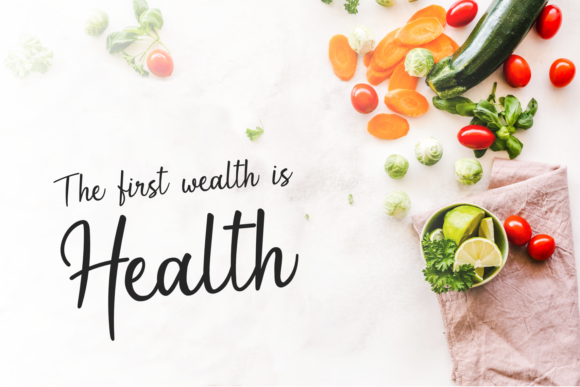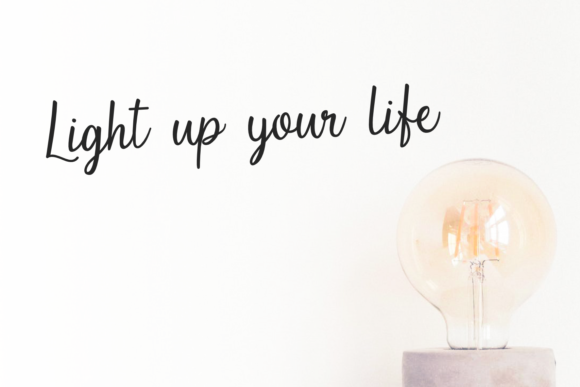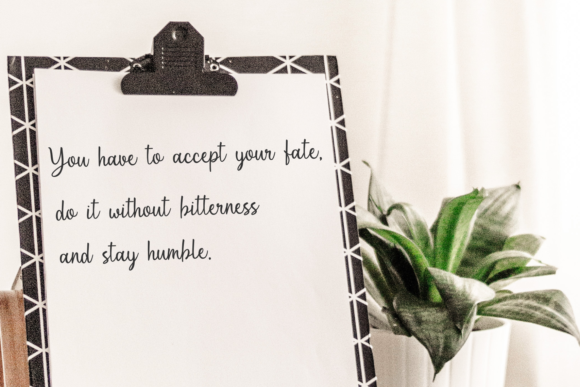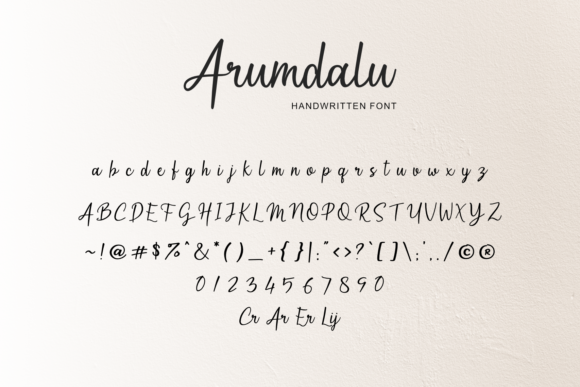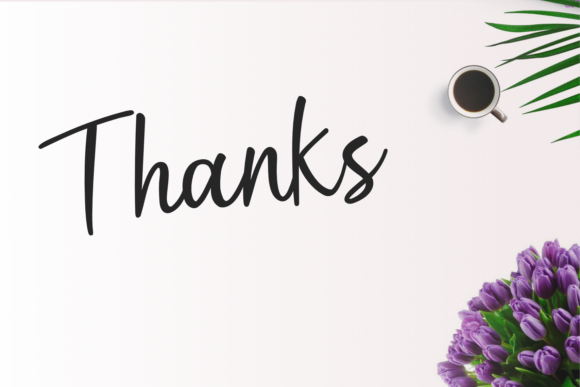
Discovering the Perfect Script: Arumdalu Font
There’s something special about scribbling down a new idea on a piece of paper – the feel of the pen gliding across the page, the sound of the words flowing onto the paper, and the excitement of bringing a concept to life. It’s moments like these that remind us of the beauty of handwritten fonts, and the importance of having the right tools to express ourselves.
Enter Arumdalu Font, a simple yet stylish handwritten font that’s designed to be easy to remember and versatile enough for any occasion. Whether you’re a designer, artist, or writer, Arumdalu Font is the perfect addition to your creative arsenal. Its clean lines and elegant curves make it a valuable asset for designers looking to add a touch of personality to their work.
Key Features of Arumdalu Font
• Character Count: The font contains a total of 1283 characters, including uppercase and lowercase letters, numbers, punctuation marks, and special symbols.
• Unique Characteristics: Arumdalu Font features a unique, hand-drawn design with a mix of modern and traditional elements, making it perfect for creating visually appealing and creative content.
• Language Support: Arumdalu Font supports multiple languages, including English, Korean, and other languages that use the Latin and Hangul scripts.
• Font Style: The font is available in regular and bold weights, allowing users to choose the style that best suits their design needs.
Arumdalu Font Review
As a designer, I’ve had the chance to work with the Arumdalu Font and I must say, it’s a unique and eye-catching choice. Here are some of the things that work well: ✨
• Unique and modern design: The Arumdalu Font has a distinct look that’s sure to grab attention. It’s perfect for projects that need a fresh and modern feel.
• Highly customizable: The font comes with a wide range of styles and weights, making it easy to customize to fit your design needs.
• Supports multiple languages: The Arumdalu Font supports a wide range of languages, making it a great choice for international projects.
• Limited font pairing options: The Arumdalu Font can be a bit bold, so it may not pair well with more traditional or serif fonts.
• May not be suitable for small text: Due to its bold nature, the Arumdalu Font may not be the best choice for small text or body copy.
Overall, I think the Arumdalu Font is a great choice for designers who want to add a touch of modernity to their projects. With its unique design and high level of customization, it’s a great option for a wide range of design needs.
Arumdalu Font Practical Application Guide
For optimal results, use the Arumdalu font in headings and titles. It’s ideal for creative and artistic projects, such as infographics, posters, and flyers. You can also use it for branding and logo designs.
Experiment with different font sizes and styles to create visual interest and emphasis. Combine Arumdalu with other fonts to create a unique and eye-catching design.
Alternatives to Arumdalu Font for Designers
Playfair Display is an elegant serif font suitable for formal and luxurious designs. It features intricate details and ornate flourishes, making it ideal for high-end branding, invitations, and certificates. In comparison to Arumdalu Font, Playfair Display is more ornate and luxurious, while Arumdalu Font has a more minimalist and modern aesthetic.
Great Vibes is a beautiful script font perfect for creating a sense of warmth and sophistication. It’s ideal for wedding invitations, restaurant menus, and other designs that require a touch of elegance. Unlike Arumdalu Font, Great Vibes has a more fluid and cursive feel, while Arumdalu Font is more geometric and modern.